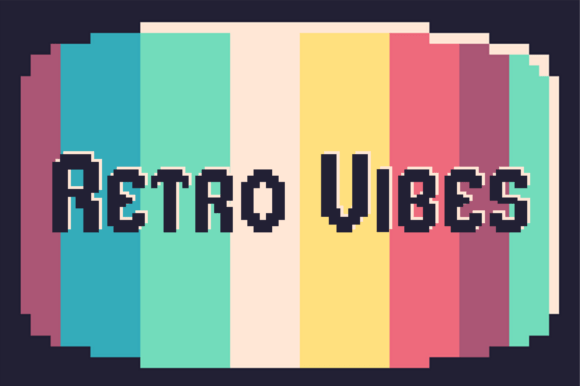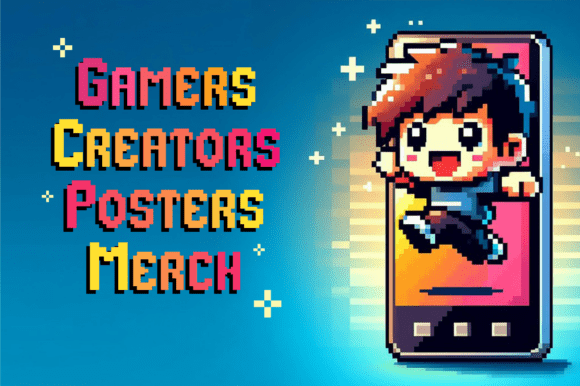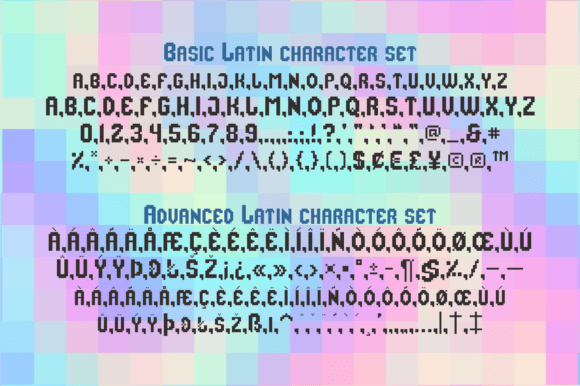
Retropix Font
RetroPix is a pixelated retro-style font inspired by classic video games and modern voxel aesthetics. With bold, sharp-edged letterforms, RetroPix brings the nostalgic feel of the 8-bit era while remaining fresh and relevant in today’s digital age.Bring a classic touch to every design — with RetroPix, your creativity will be pixel-perfect!